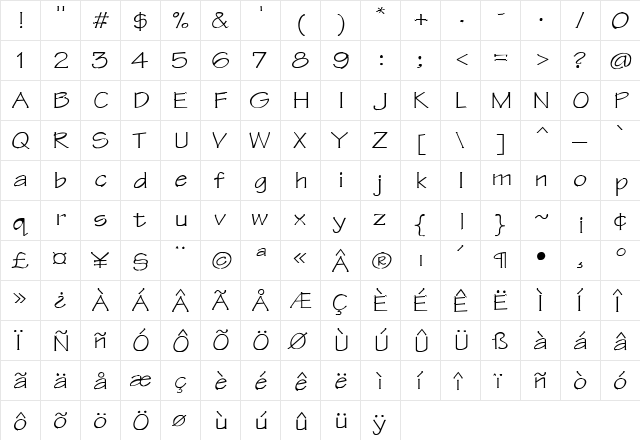
PENCILPT WIDE Normal
Design Context for PENCILPT WIDE Typeface
PENCILPT WIDE takes a measured approach to typography — its balanced proportions and neutral character make it a reliable workhorse for both digital and print work.